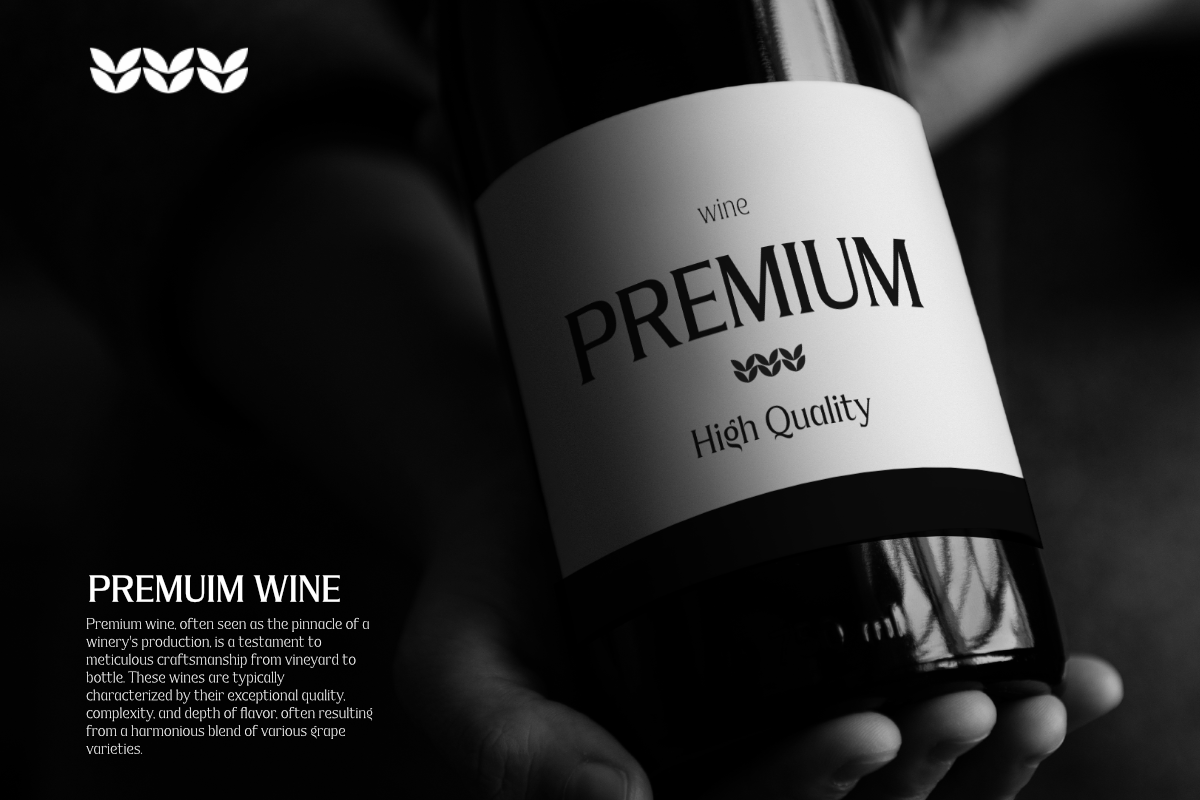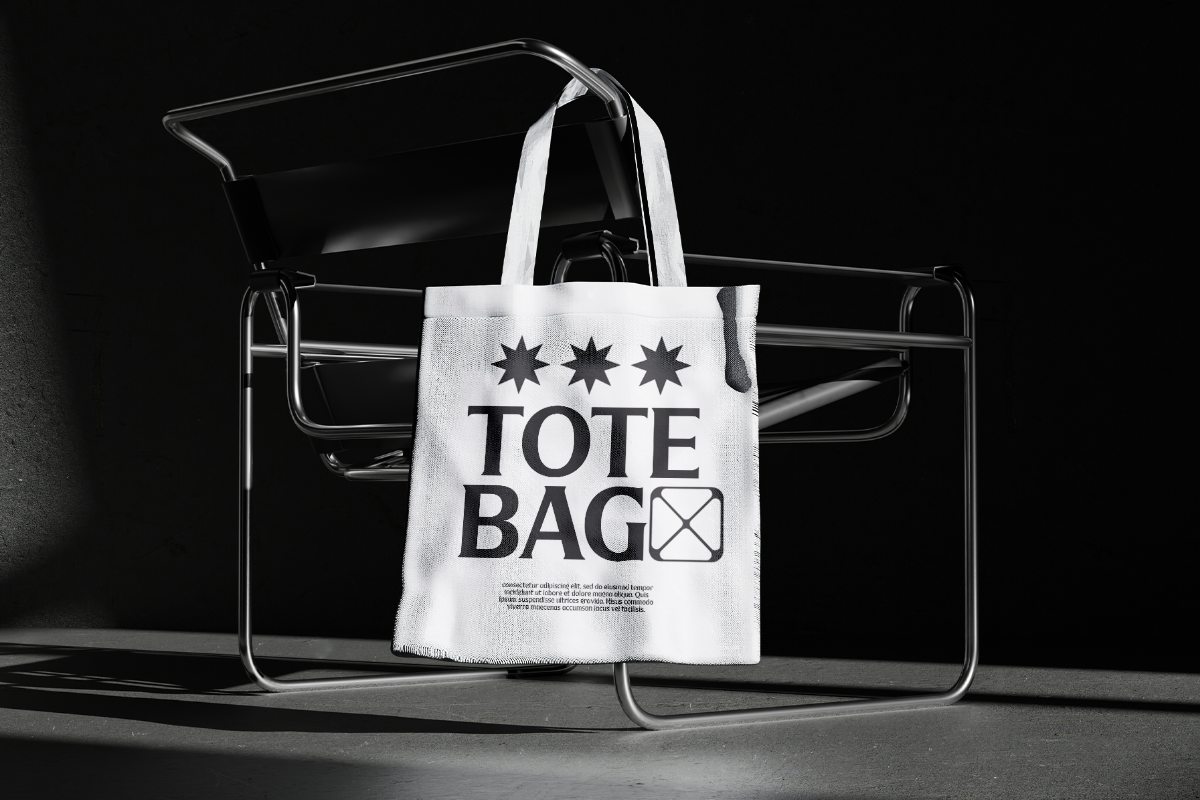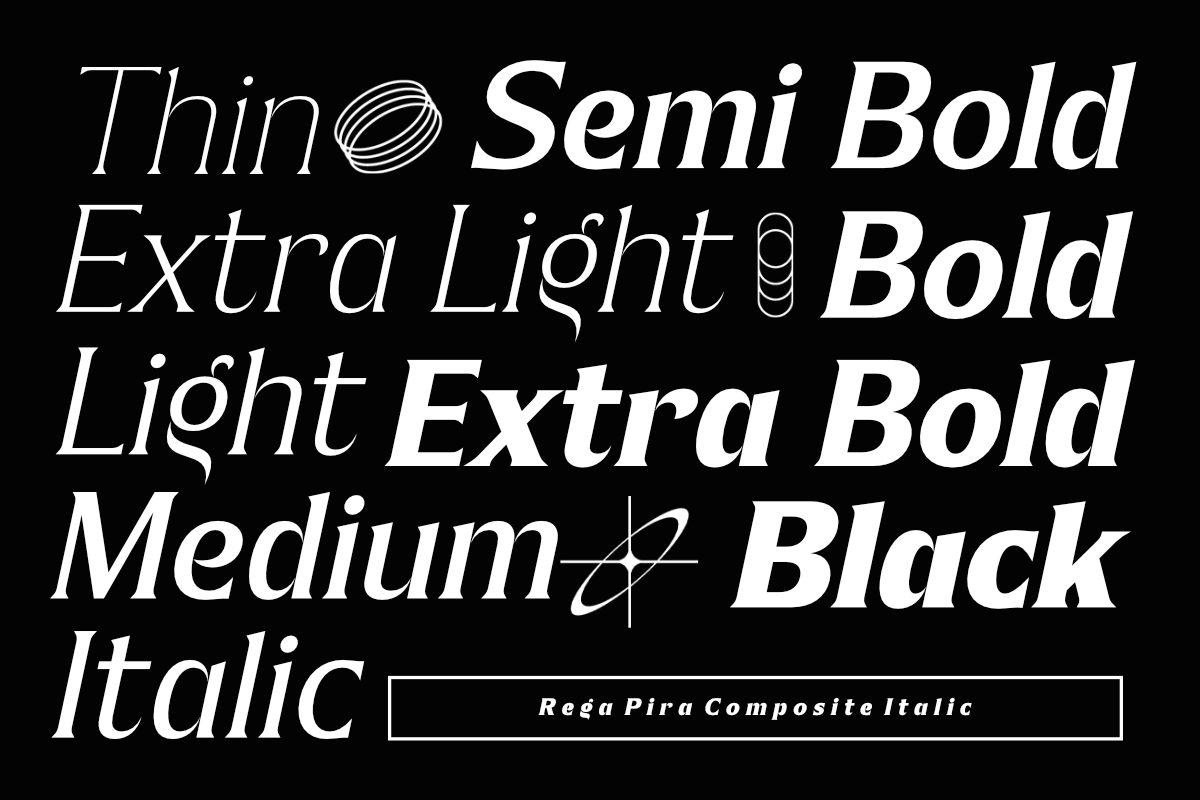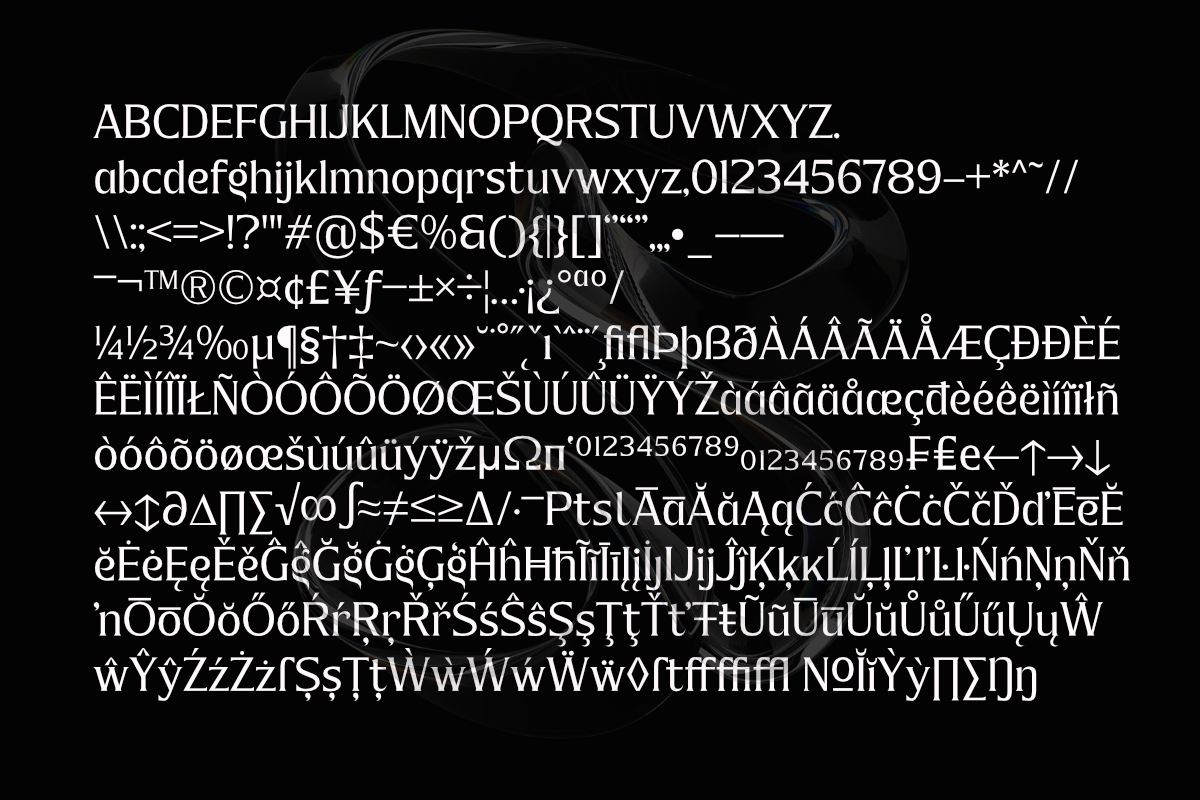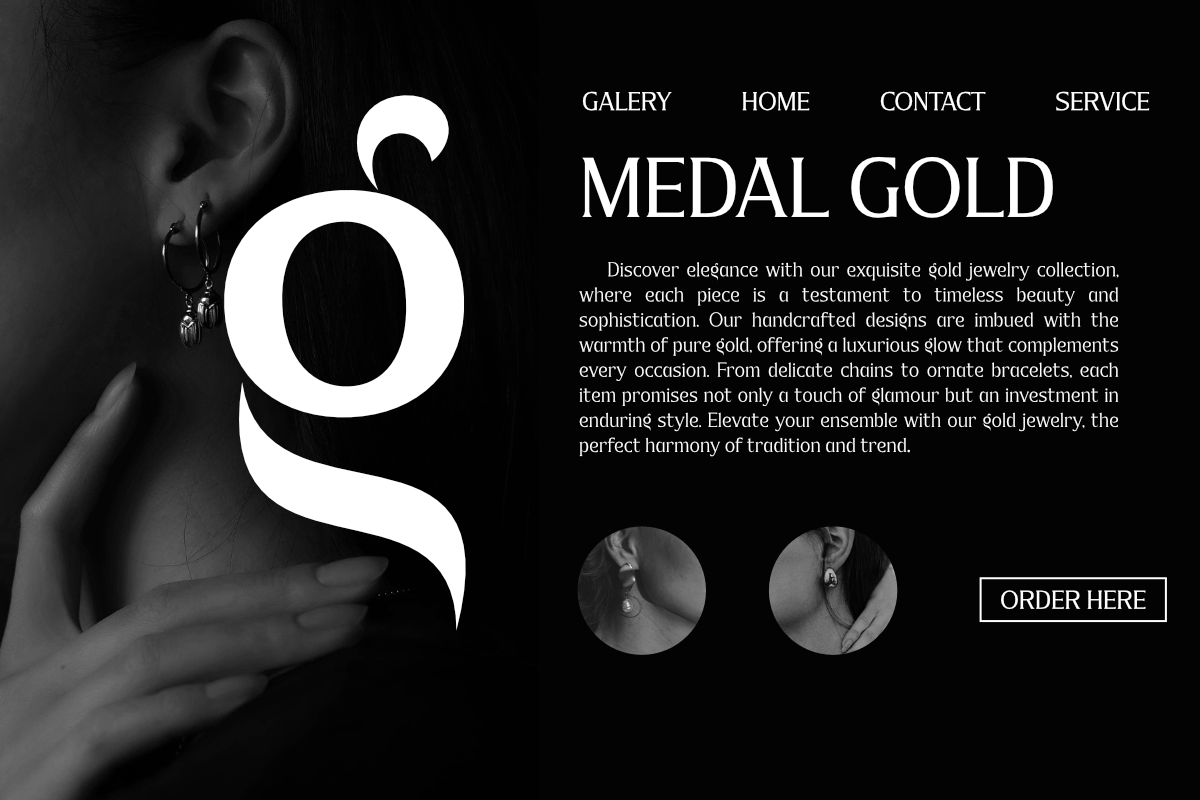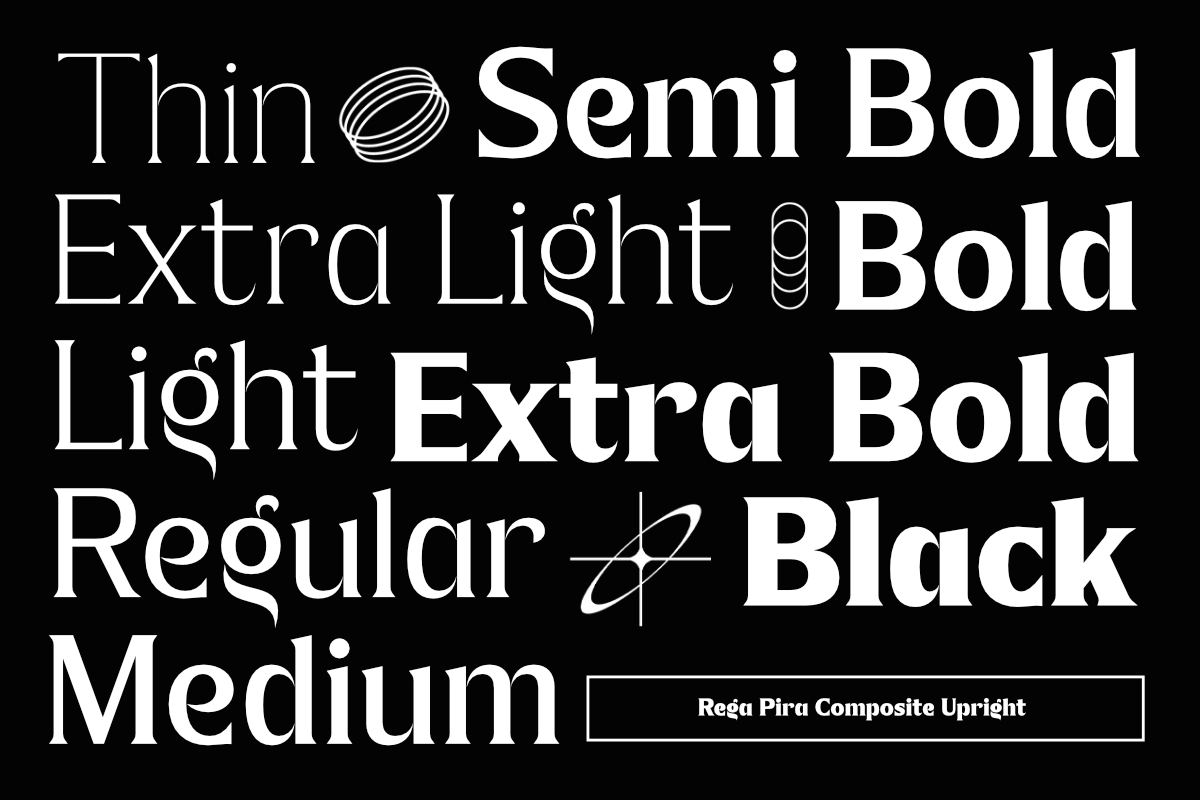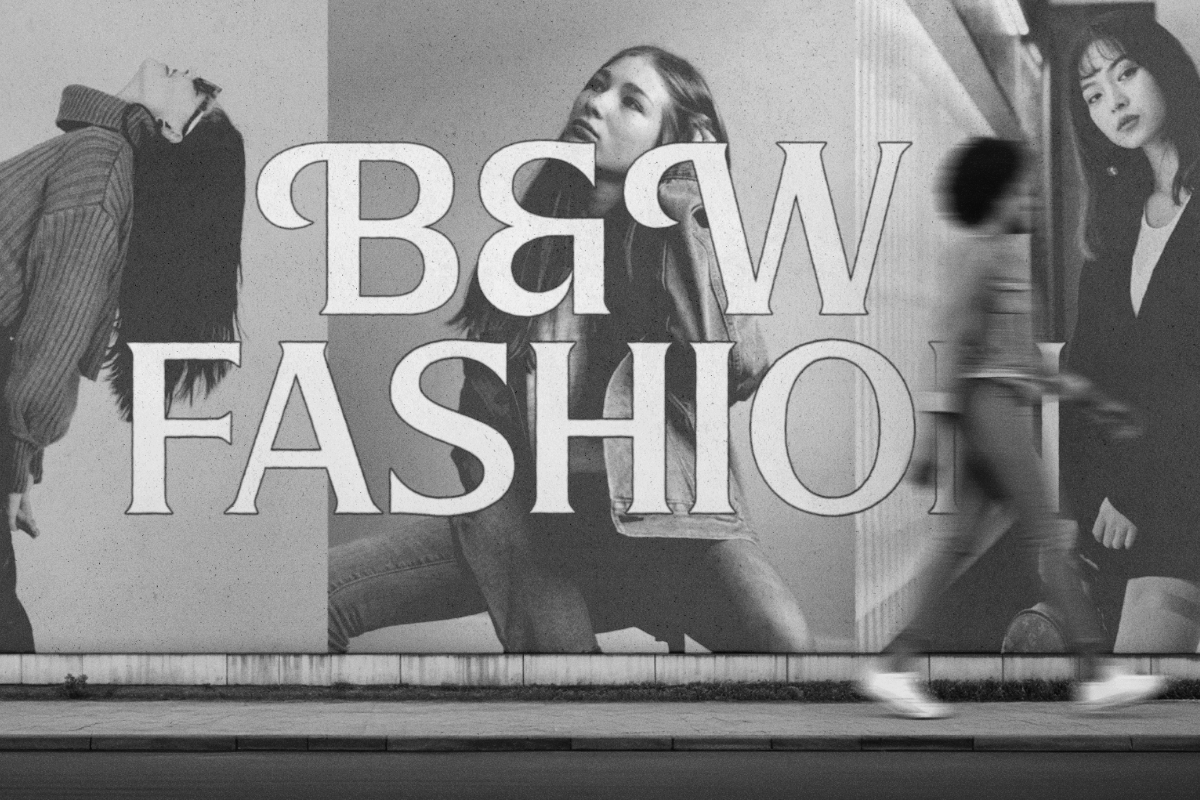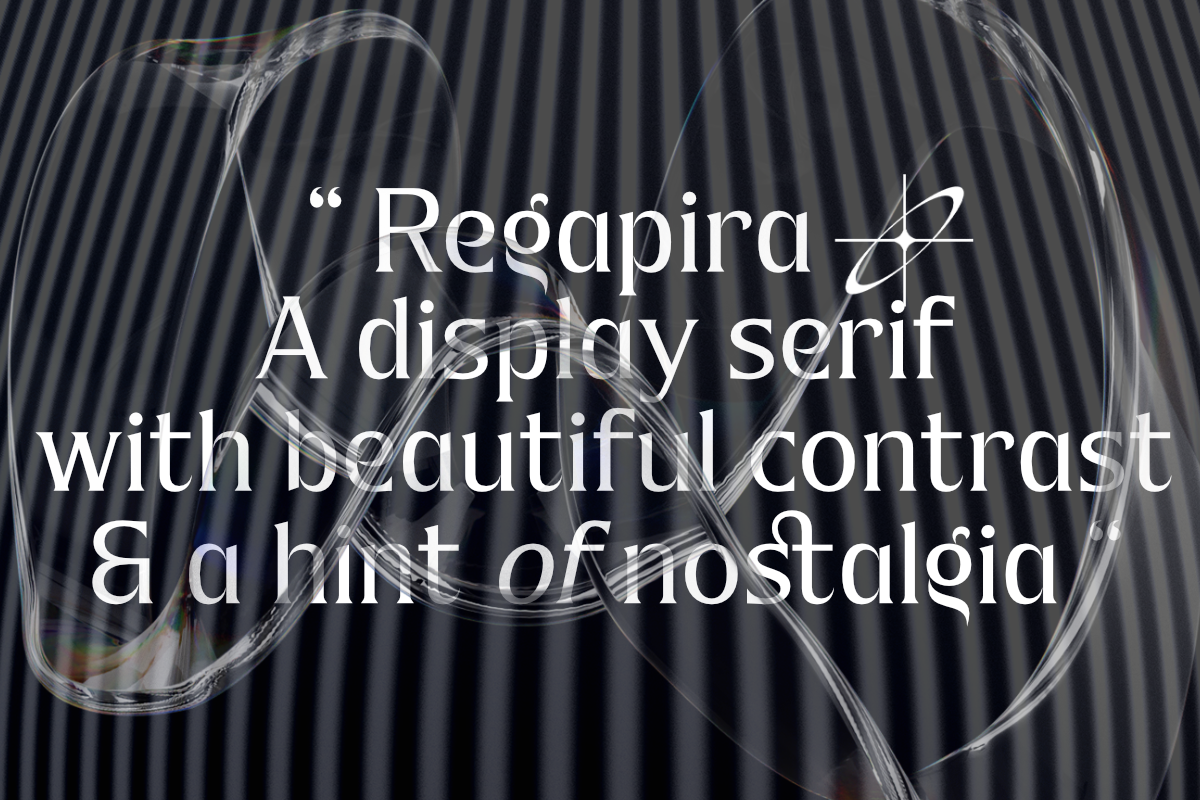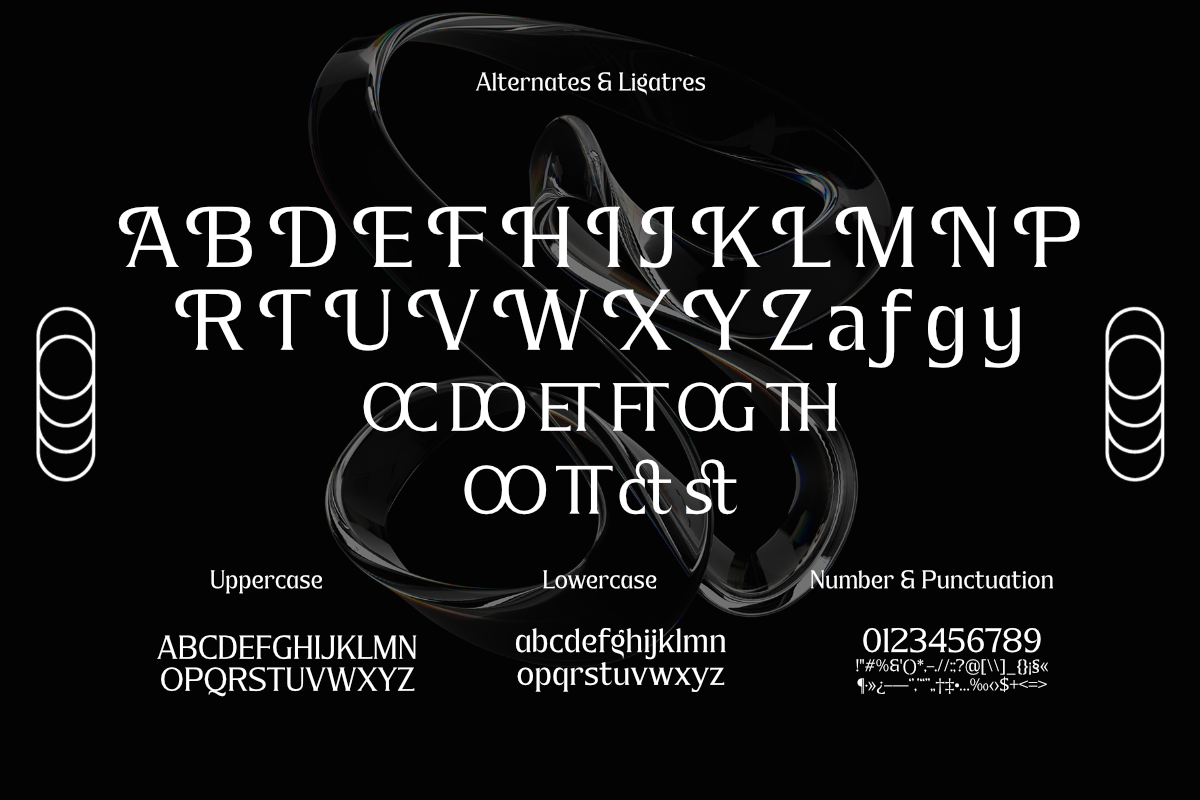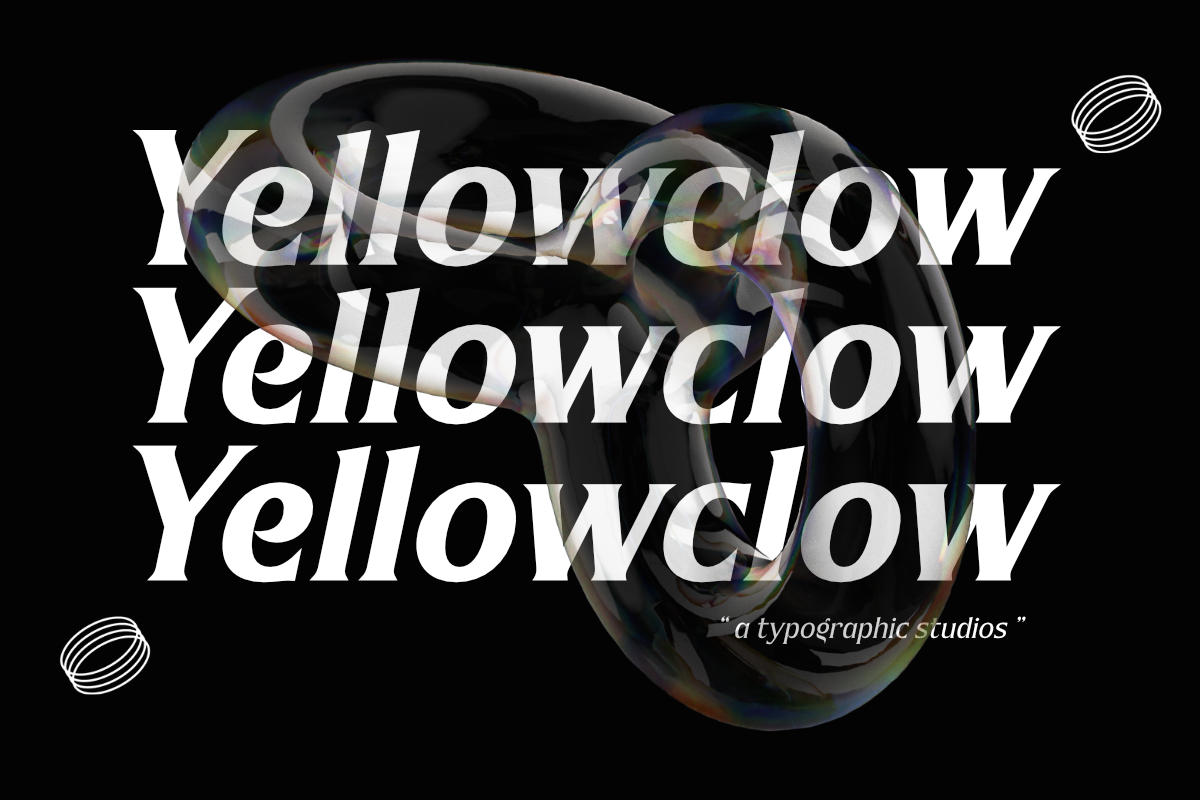
Rega Pira - Elegant Serif Family
Introducing “Rega Pira”, a serif font family that embodies elegance in minimalism. Crafted with precision, Rega Pira offers a clean and refined aesthetic that enhances the readability of any text. Its character set is designed to convey a sense of sophistication, making it an ideal choice for high-end branding and editorial design. With 18 versatile styles ranging from thin to black with italics, Rega Pira offers designers a wide range of options, ensuring the perfect weight for any project. Whether for body text that requires subtlety or headlines that demand attention, Rega Pira’s adaptability makes it a classic font for a variety of design applications. Its timeless appeal is matched by its functional versatility, making Rega Pira a font that not only captures the essence of contemporary typography but also sets a new standard for typeface design.